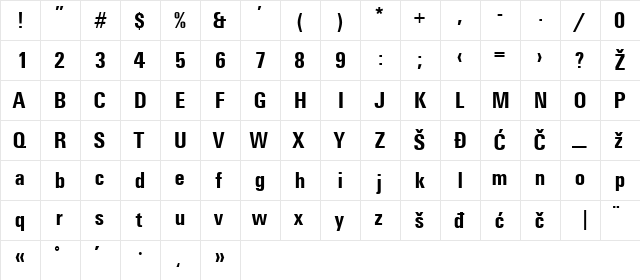
Universans670_PP Bold
Design Context for Universans670_PP Typeface
Universans670_PP takes a measured approach to typography — its balanced proportions and neutral character make it a reliable workhorse for both digital and print work. Its bold stroke weight gives it real presence on the page.